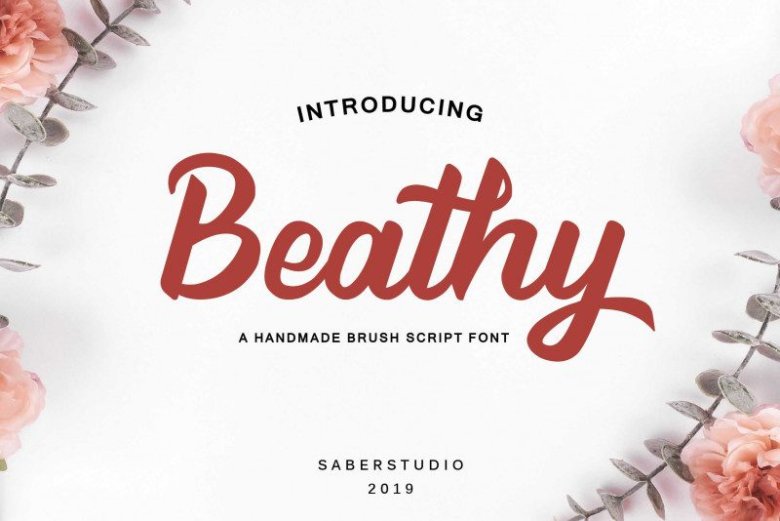
Beathy Brush Script Font
Beathy is a fun and lught handwritten font with a lot of charm. It will effortlessly inspire any new design idea!
Didik Saputra